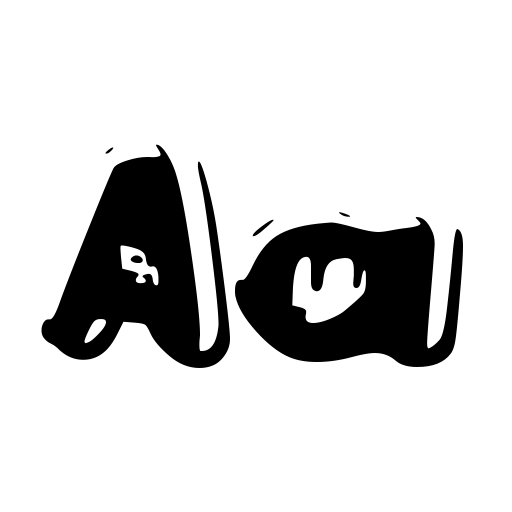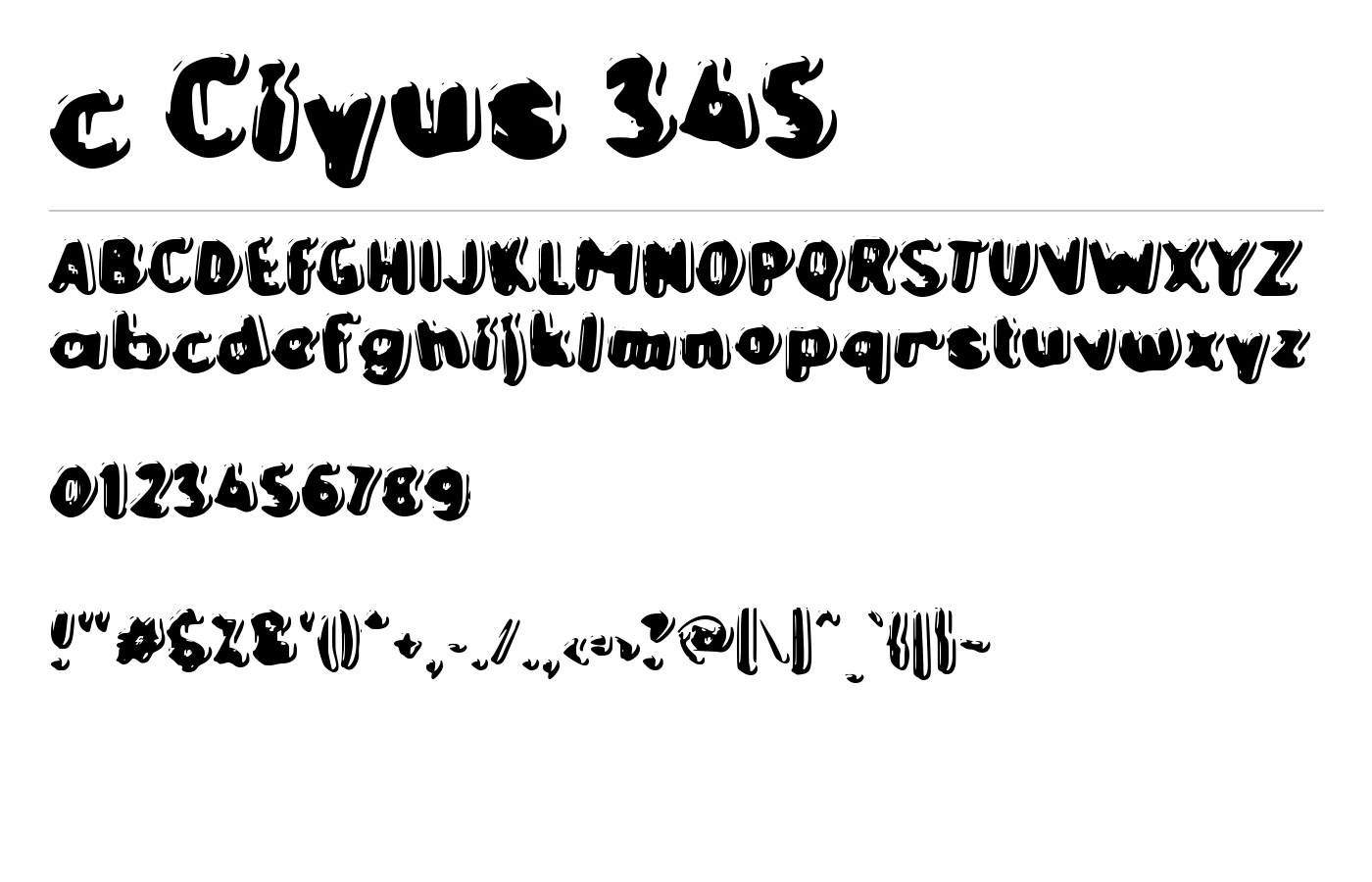
Ciyus 345 is a bold, playful display font with a heavy weight and irregular, organic shapes that give it a spontaneous and artistic feel. Its thick, rounded letterforms and quirky details create a lively, hand-crafted aesthetic, perfect for eye-catching headlines, posters, or creative branding that aims to express fun and originality. This font stands out best in contexts where character and energy are desired over traditional readability and formality.
c Ciyus 345 Font